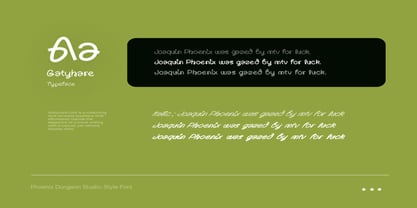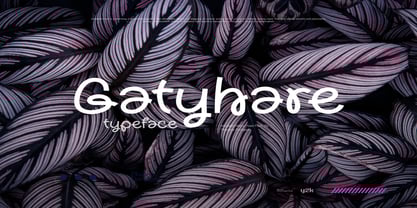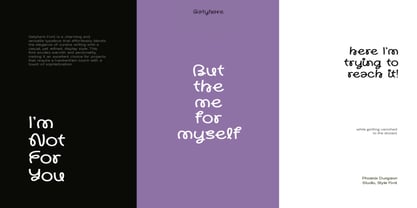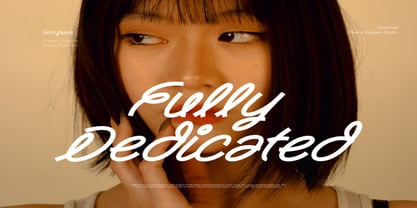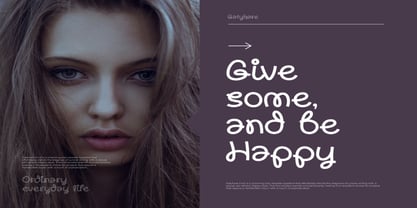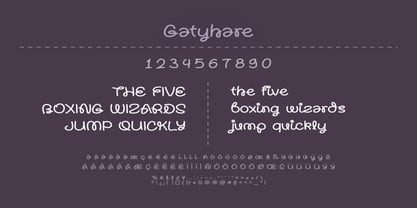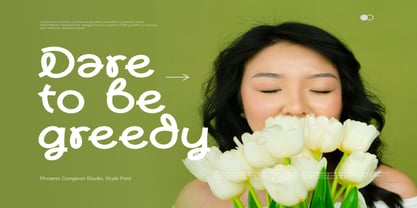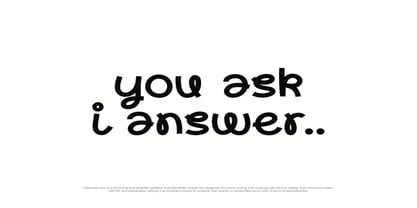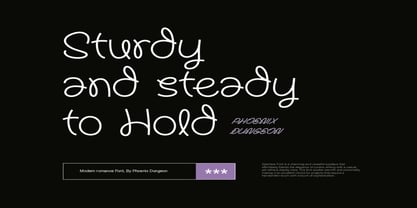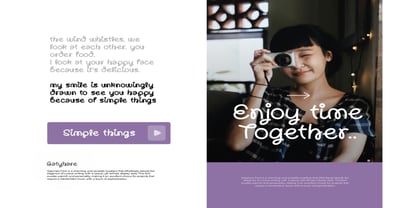
Gatyhare
by Phoenix Group
The Gatyhare Font Family was designed by Alif Naufal Muzakki and published by Phoenix Group. Gatyhare contains 6 styles and family package options.
Gatyhare is a charming and playful typeface that blends creativity with a touch of elegance. Featuring rounded strokes, unique letterforms, and a friendly handwritten style, this font brings warmth and personality to any project. Perfect for branding, children’s books, posters, product packaging, and social media designs, Gatyhare adds a fun yet professional look that makes your work stand out.
Designers: Alif Naufal Muzakki
Publisher: Phoenix Group
Foundry: Phoenix Group
Design Owner: Phoenix Group